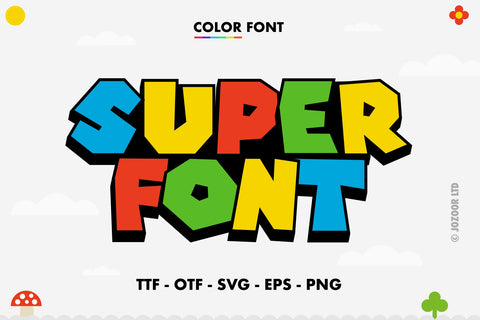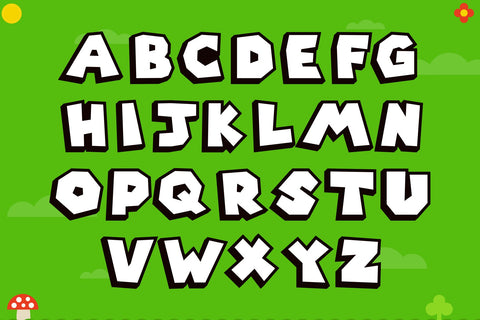
Super Color Font
Super is a full-color font that features blocky, primary-colored lettering with black shadows, also It comes with black, outline, and white colors. It can be perfectly be used in any of your new projects such as crafting, t-shirt designs, digital designs, and much more. Add it to each of your creative ideas, and notice how it makes them stand out!